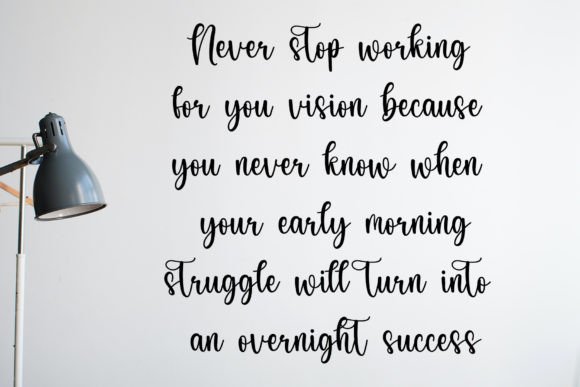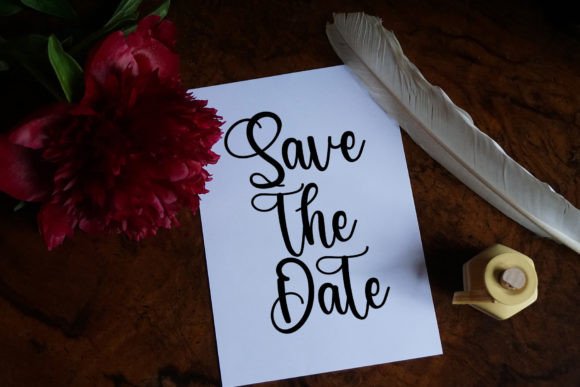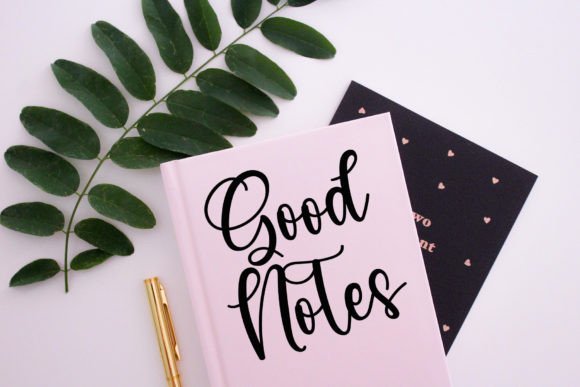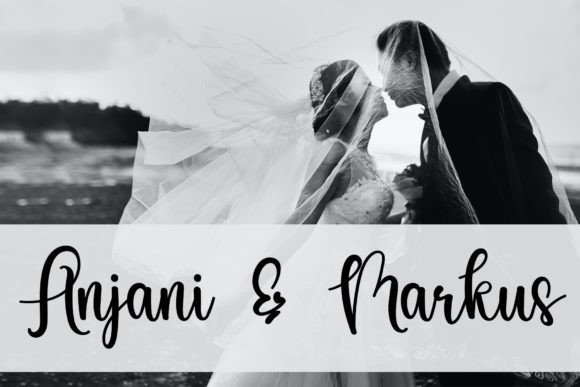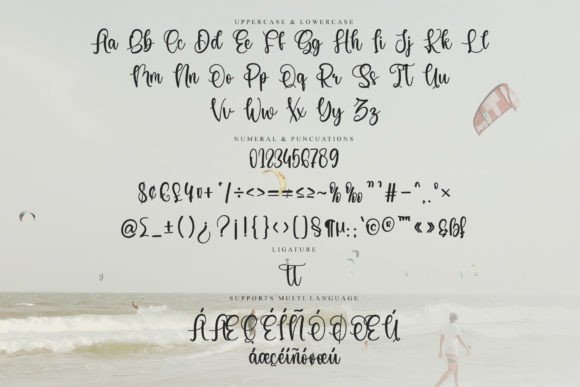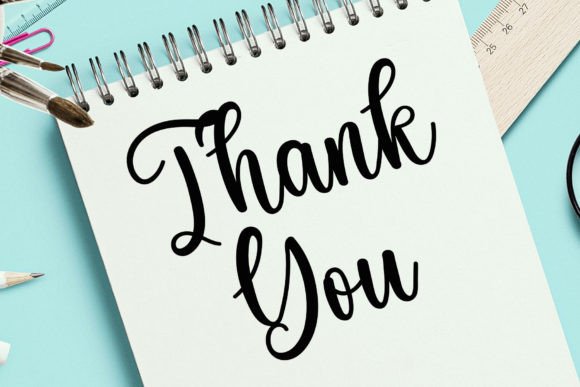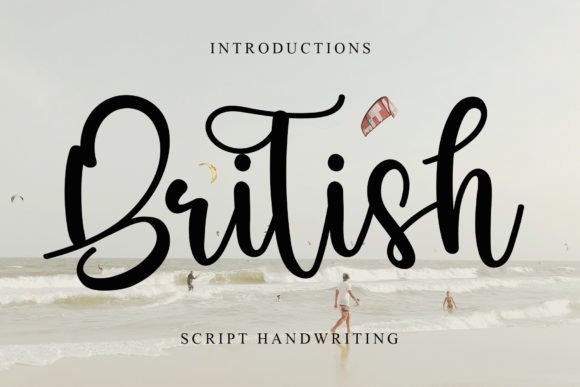
Introducing British Font: Elevate Your Designs with a Stylish and Modern Handwritten Touch
Are you on the hunt for a font that can add a dash of personality and sophistication to your designs? Look no further than the British Font, a stylish and modern handwritten font that’s perfect for a wide range of applications. From greeting cards to headlines, branding, and packaging, this font is sure to bring a touch of happiness to each of your creations.
What Makes British Font So Special?
British Font is a beautifully crafted handwritten font that’s designed to help you create stunning designs with ease. Its unique and elegant style makes it perfect for designers and crafters who want to add a personal touch to their work. Whether you’re creating a greeting card, a brochure, or a social media post, this font is sure to make your design stand out from the crowd.
Key Features of British Font
- PUA Encoded: British Font is PUA encoded, which means you can access all of the amazing glyphs and ligatures with ease. This makes it simple to use and customize the font to suit your needs.
- Handwritten Style: The font features a beautiful handwritten style that’s perfect for adding a personal touch to your designs.
- Modern and Stylish: British Font is a modern and stylish font that’s perfect for designers and crafters who want to create contemporary designs.
- Wide Range of Applications: This font is suitable for a wide range of applications, including greeting cards, headlines, branding, packaging, and more.
Why Choose British Font?
There are many reasons why British Font is an excellent choice for designers and crafters. Here are just a few:
- Easy to Use: British Font is simple to use and customize, even for those who are new to font design.
- High-Quality Design: The font features a high-quality design that’s perfect for printing and digital use.
- Unique Style: British Font has a unique and elegant style that’s sure to make your designs stand out from the crowd.
- Versatile: This font is versatile and can be used for a wide range of applications, from formal to informal designs.
How to Use British Font in Your Designs
Using British Font in your designs is simple. Here are a few tips to get you started:
- Pair it with Other Fonts: British Font pairs well with other fonts, so feel free to experiment with different combinations to find the perfect look for your design.
- Use it for Headlines and Titles: This font is perfect for headlines and titles, as it adds a touch of elegance and sophistication to your design.
- Experiment with Colors: British Font looks great in a variety of colors, so don’t be afraid to experiment and find the perfect color scheme for your design.
In conclusion, British Font is a stylish and modern handwritten font that’s perfect for designers and crafters who want to add a touch of personality and sophistication to their designs. With its PUA encoded feature, handwritten style, and modern design, this font is sure to bring a touch of happiness to each of your creations. So why wait? Download British Font today and start creating stunning designs that will leave a lasting impression on your audience.
Whether you’re a seasoned designer or a crafter just starting out, British Font is an excellent choice for anyone looking to elevate their designs. So go ahead, get creative, and see what amazing designs you can create with British Font!